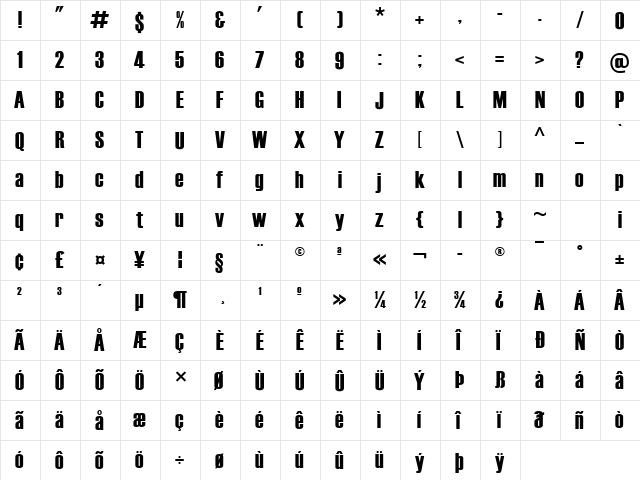
Temp Installer Font Regular
Design Context for Temp Installer Font Typeface
Temp Installer Font offers clean, dependable letterforms without strong stylistic allegiance, making it a practical choice for designers who need flexibility.